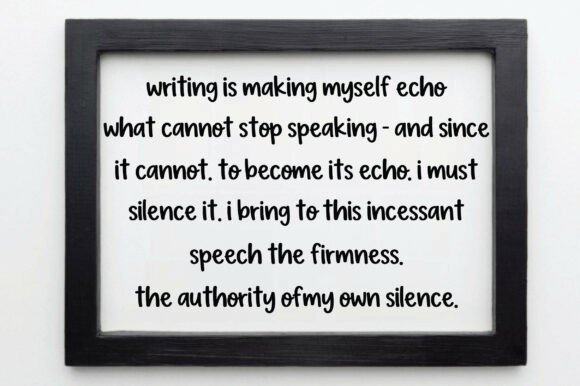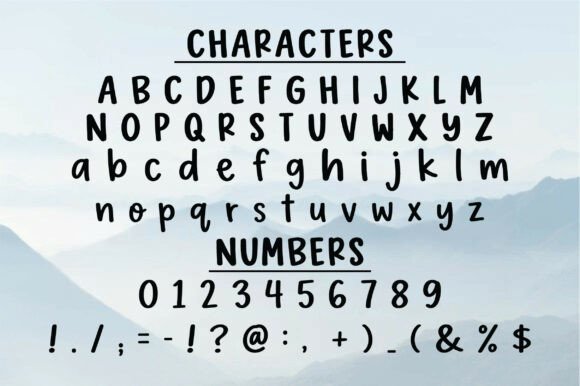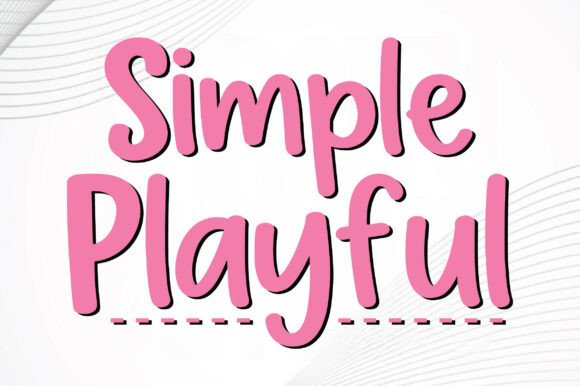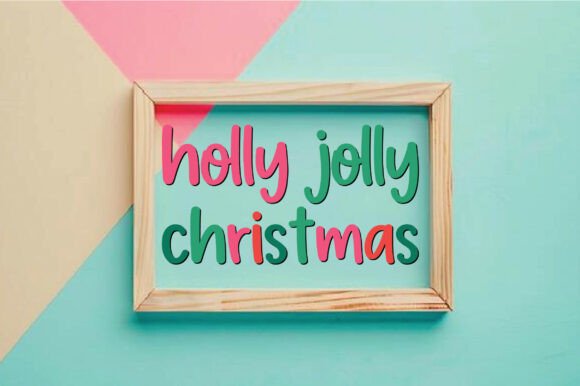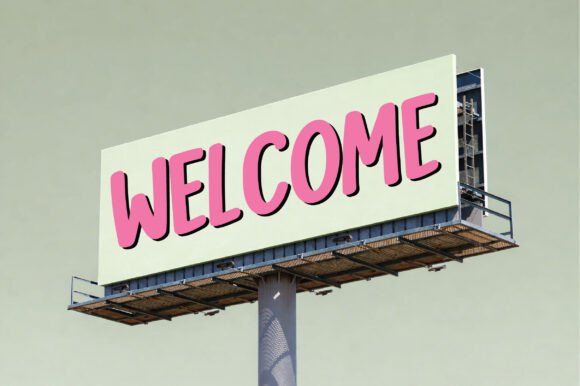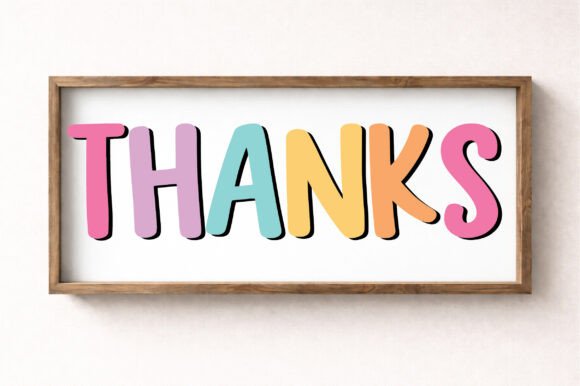
Introduction to Simple Playful Font
“Simple Playful” is a rounded display typeface designed to bring warmth, joy, and friendliness to any creative project.
Featuring soft curves, smooth edges, and a hand-drawn feel, this font combines a casual personality with clean readability The thick, rounded letterforms create a cheerful and approachable look, making it perfect for children’s designs, branding, packaging, social media graphics, posters, and fun quote artwork.
Key Features of Simple Playful Font